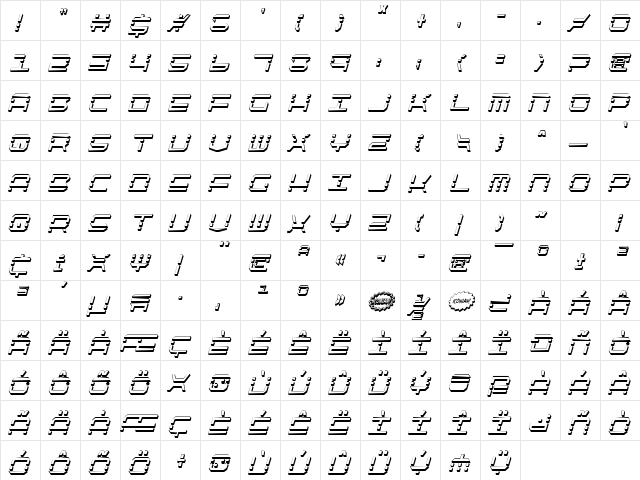
QuickQuick Shadow ItalCondensed Shadow ItalCondensed
Design Context for QuickQuick Shadow ItalCondensed Typeface
QuickQuick Shadow ItalCondensed brings ornamental detail and strong personality to headlines and identities, where visual impact matters more than quiet functionality.
Font Pairing: Pair with a clean neutral sans-serif for body copy to let QuickQuick Shadow ItalCondensed's character lead without overwhelming the composition.
Pro Tip: Treat QuickQuick Shadow ItalCondensed as the centrepiece of your typographic hierarchy. One strong heading set in a decorative face can carry an entire layout.